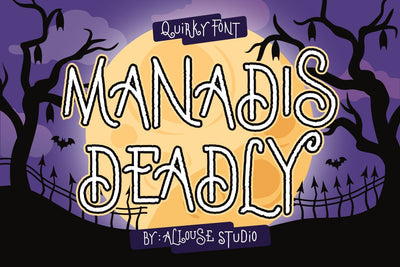
Manadis Deadly - Quirky Font
Proudly Present, Manadis Deadly a Quirky Font.
Manadis Deadly come with many Stylistic-Alternates for Uppercase and Lowercase. This also come along with Multi-Lingual Support so thats all will give you more choices to play arround.
Manadis Deadly is perfect for any tittle, logo, product packaging, branding project, megazine, social media, or just used to express words above the background.